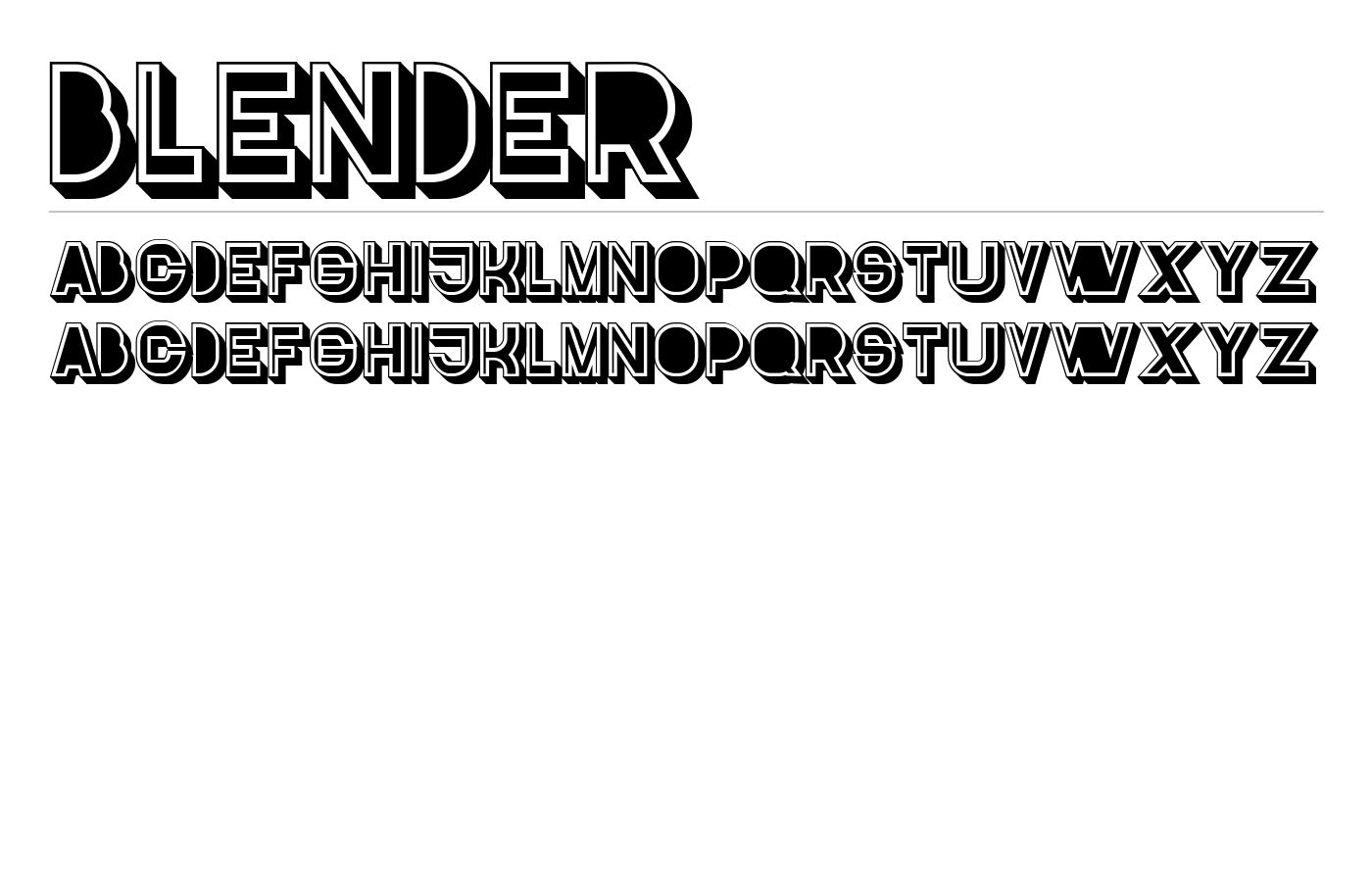
Blender Font is a bold and playful display typeface with a strong Art Deco vibe, characterized by its geometric shapes and striking 3D shadow effect. Its uppercase letters feature a mix of solid fills and outlined forms, creating a dynamic and eye-catching look that works well for headlines, logos, and vintage-inspired designs. This font is perfect for projects that seek a retro yet modern feel, adding personality and flair to posters, branding, and editorial covers.
Blender Font
About Blender Font